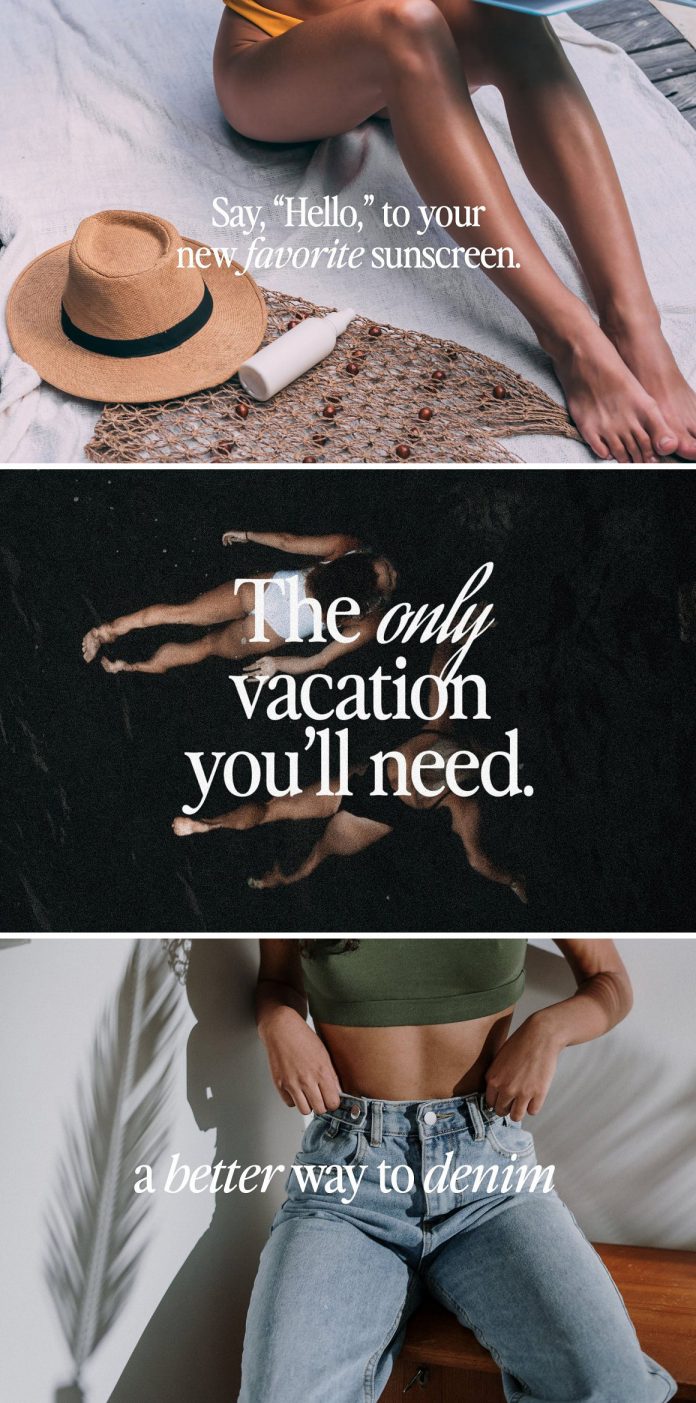
Perfectly Nineties, a nostalgic serif font designed and published by Jen Wagner Co.
Since classic, tightly-spaced serif fonts of the 1980s and 1990s are making a comeback, type designer Jen Wagner wanted to create the perfect one for you too! The result is Perfectly Nineties, a beautifully designed nostalgic serif font with upper and lowercase letters. the font looks amazing in both large and small sizes. Especially when you combine the regular and italic styles, you can create some striking typography.